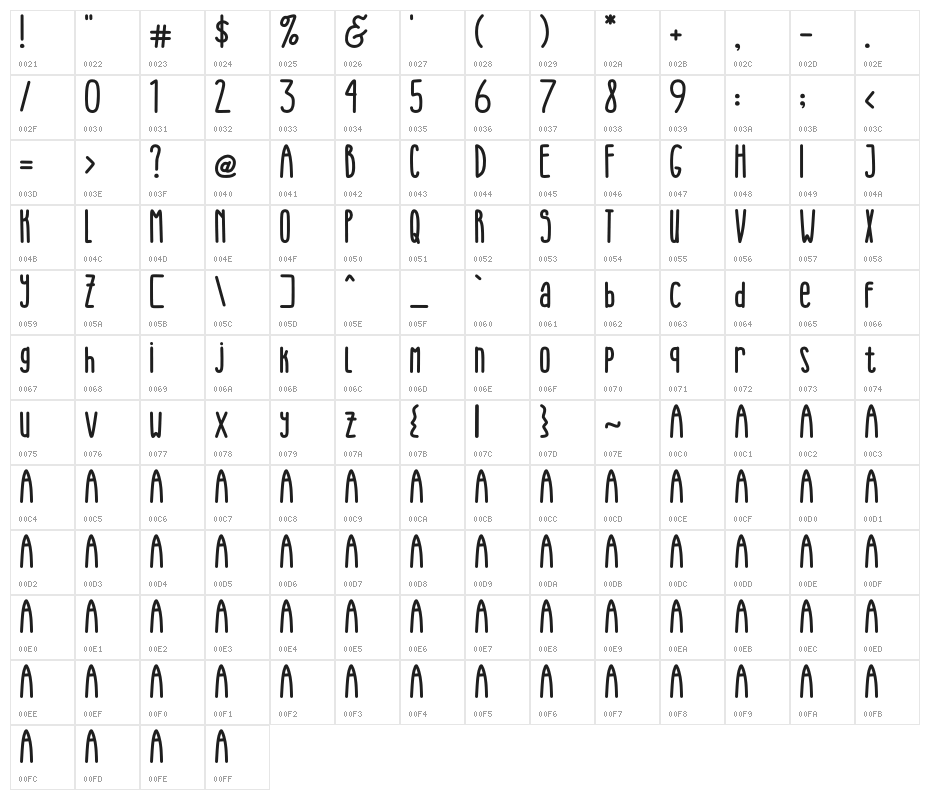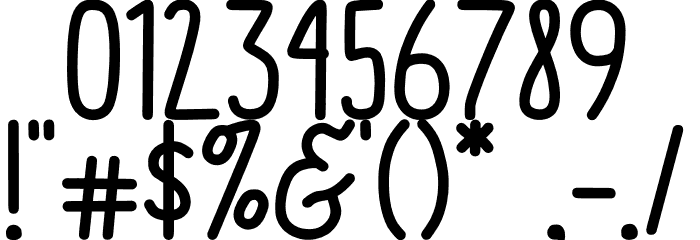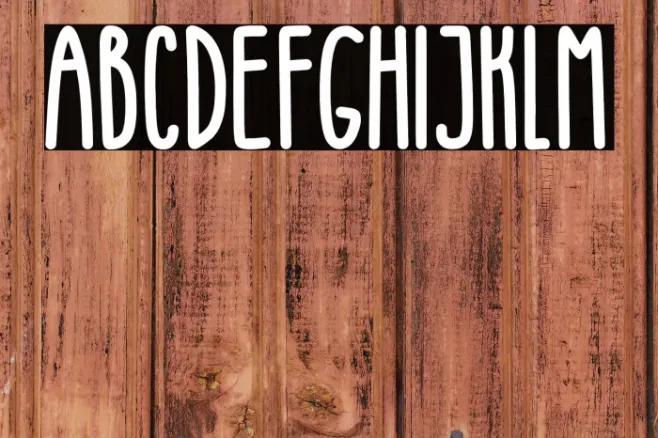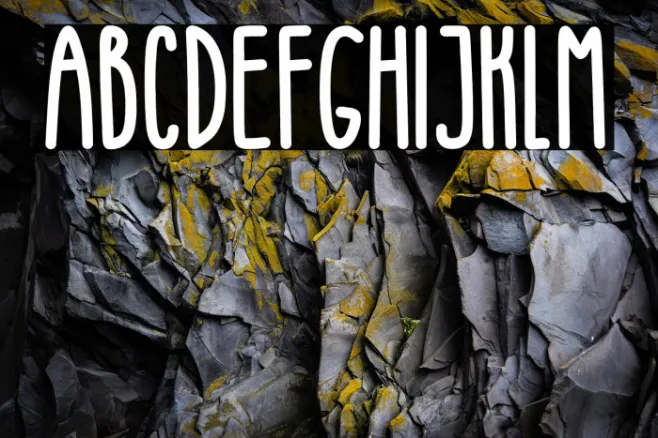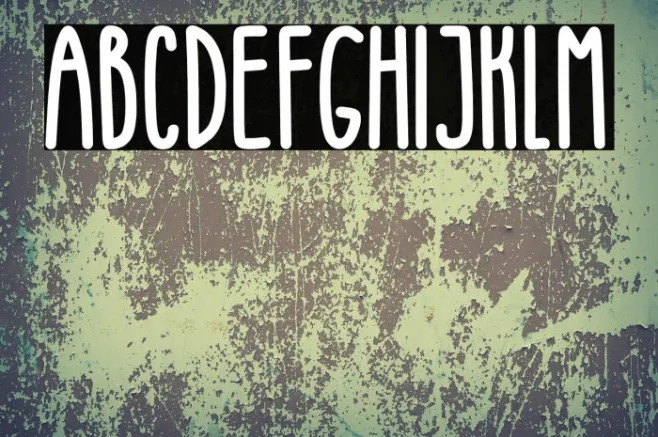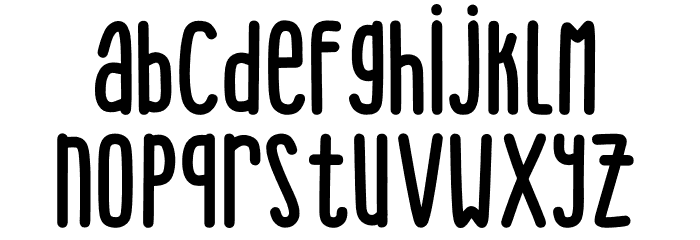
RedHead Snake Font
RedHead Snake Description
This playful and quirky font features elongated, rounded characters that give it a unique and friendly appearance. The letters are tall and narrow, with a consistent stroke width that maintains a clean and modern look. The uppercase and lowercase letters are distinct yet harmonized, with a slightly whimsical touch that adds character. Numbers and special characters follow the same design principles, ensuring uniformity across all glyphs. The font's style is approachable and fun, making it ideal for projects that require a touch of personality and creativity.
REDHEAD-SNAKE UPPERCASE
REDHEAD-SNAKE LOWERCASE
REDHEAD-SNAKE OTHER CHARS
| Overall Style | Modern, Playful |
| Proposed Projects | Ideal for children's books, playful branding, creative posters, and social media graphics. |